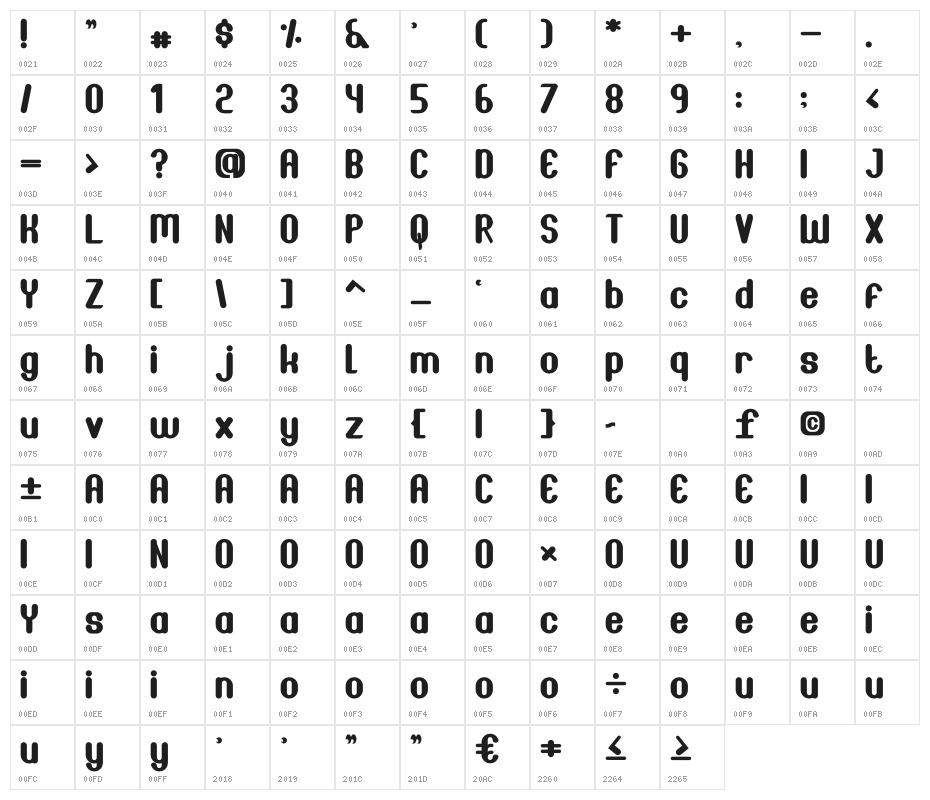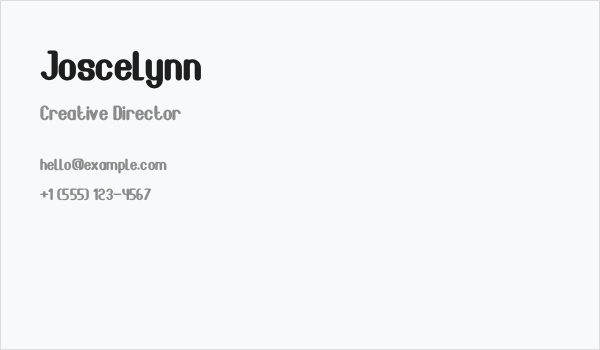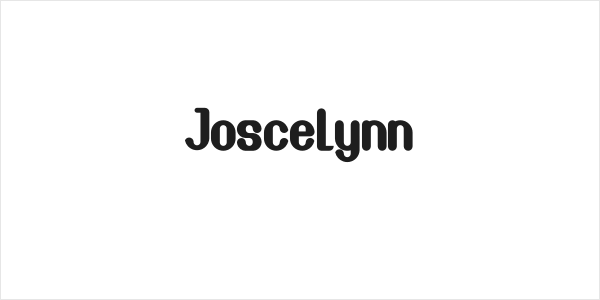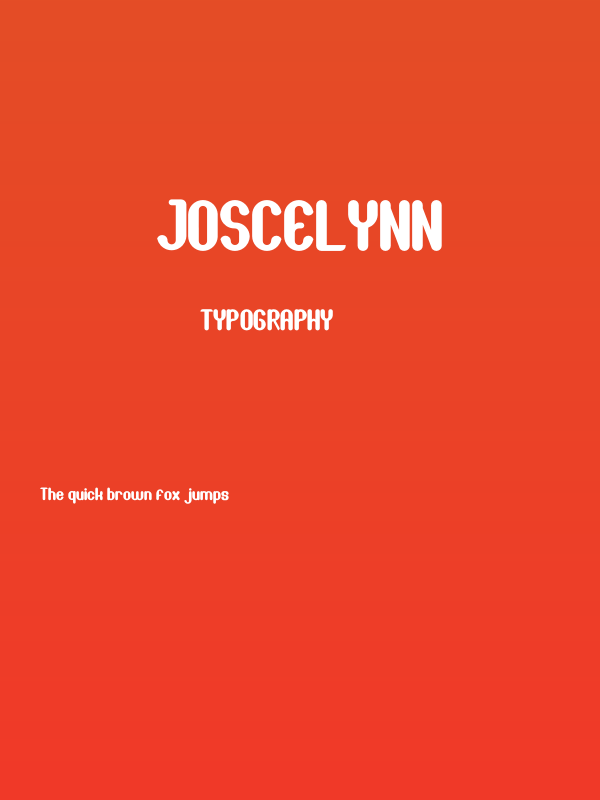
Joscelynn Font
Joscelynn Description
This font features a bold and playful design with rounded edges and a consistent stroke width. The characters are well-balanced, offering a modern and friendly appearance. The uppercase letters maintain a uniform height, while the lowercase letters are slightly shorter, adding to the font's approachable style. The numerals are clear and easy to read, matching the overall aesthetic. Special characters are included, maintaining the same rounded and bold characteristics, ensuring versatility in various design applications.
| Proposed Projects | Ideal for children's books, playful branding, posters, and social media graphics. |